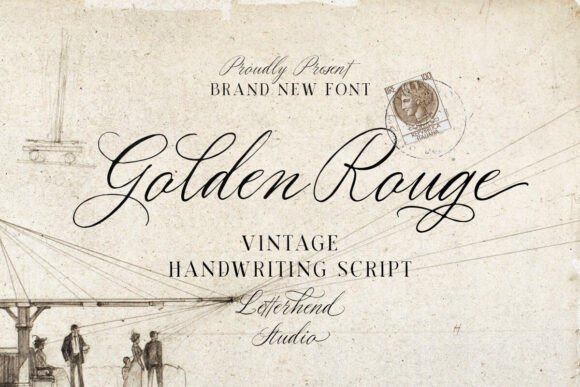
Introducing Golden Rouge Font: Elevate Your Designs with Elegance and Versatility
In the world of typography, few fonts manage to capture the essence of vintage elegance while offering modern versatility. Golden Rouge Font is one such exceptional typeface that brings together the charm of classic script styles with the flexibility needed for contemporary design projects. Whether you’re a graphic designer, a branding expert, or simply someone with a passion for typography, Golden Rouge is poised to become your go-to font for creating stunning, handcrafted lettering.
Key Features of Golden Rouge Font
- Vintage Script Inspiration: Golden Rouge draws its inspiration from traditional script styles, offering a sophisticated and timeless appeal.
- Stylistic Alternates: The font comes with a range of stylistic alternates, allowing you to customize your text and add a unique touch to your designs.
- Ligatures and Swashes: With an array of ligatures and swashes, Golden Rouge enables you to create natural, flowing text that mimics handwriting.
- Versatility: Its extensive feature set makes it suitable for a wide range of applications, from elegant logos and invitations to stylish packaging and advertising.
Ideal Applications for Golden Rouge Font
Golden Rouge’s versatility is one of its standout qualities, making it an excellent choice for various design projects. Here are some of the ideal applications for this beautiful font:
- Logos: Create memorable and elegant logos that stand out with Golden Rouge’s distinctive charm.
- Invitations: Whether it’s a wedding, a birthday party, or a corporate event, Golden Rouge can help you craft invitations that exude class and sophistication.
- Labels and Packaging: Add a touch of elegance to your product labels and packaging, making your brand more appealing to customers.
- Magazines and Books: Use Golden Rouge for headings, titles, or even body text to give your publications a refined and luxurious feel.
- Greeting and Wedding Cards: Make your cards special with personalized, handcrafted typography that speaks to the occasion.
- Fashion and Makeup Branding: Elevate your fashion or makeup brand with a font that embodies style and sophistication.
- Stationery: From letterheads to notebooks, Golden Rouge can add an elegant touch to your stationery designs.
- Advertising: Use Golden Rouge in your advertising materials to convey a sense of luxury and timelessness.
Design Tips for Using Golden Rouge Font
To make the most of Golden Rouge, consider the following design tips:
- Mix and Match: Don’t be afraid to experiment with different stylistic alternates, ligatures, and swashes to create a unique look.
- Pair with Simplicity: Golden Rouge’s elegance can be overpowering. Pair it with simpler fonts for body text to maintain readability.
- Adjust Kerning and Tracking: Fine-tune the spacing between letters to ensure your text looks natural and aesthetically pleasing.
- Use it Large: Golden Rouge shines when used in larger sizes. Consider using it for titles, headings, or any text you want to stand out.
Why Choose Golden Rouge Font?
In a sea of digital fonts, Golden Rouge stands out for several reasons:
- Timeless Appeal: Its vintage inspiration ensures that your designs will remain stylish for years to come.
- Elegance: Golden Rouge brings a level of sophistication to your designs that’s hard to achieve with more modern fonts.
- Versatility: Its range of features makes it adaptable to various design needs and personal styles.
- Handcrafted Feel: With its natural, handcrafted aesthetic, Golden Rouge can add a personal touch to your designs.
Golden Rouge Font is more than just a typeface; it’s a design tool that can elevate your projects with its elegance, versatility, and timeless charm. Whether you’re designing for luxury brands, creating artistic content, or simply looking for a font that can add a sophisticated touch to your work, Golden Rouge is an excellent choice. Its range of stylistic alternates, ligatures, and swashes, combined with its vintage script inspiration, makes it the perfect font for anyone looking to add a bit of class and personality to their designs.
Incorporate Golden Rouge into your typography arsenal and discover how it can transform your designs. With its ability to convey elegance and sophistication, Golden Rouge is not just a font but a statement piece for your creative projects.